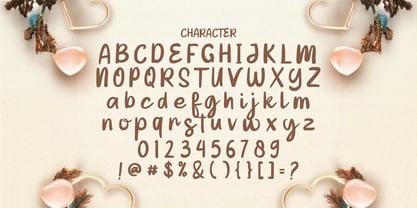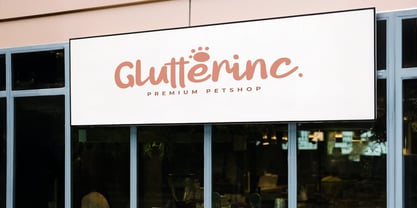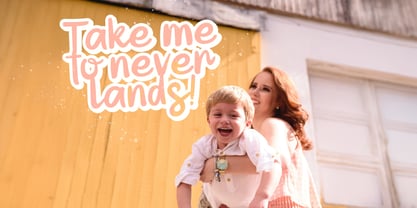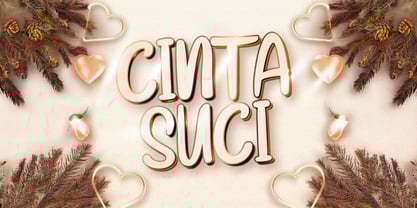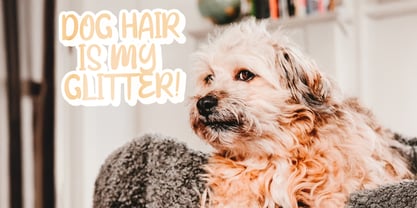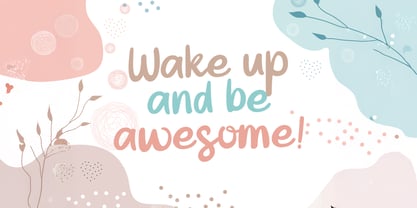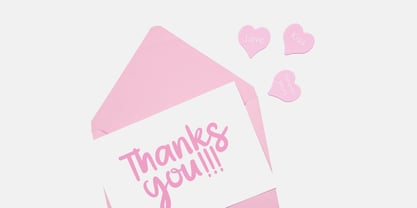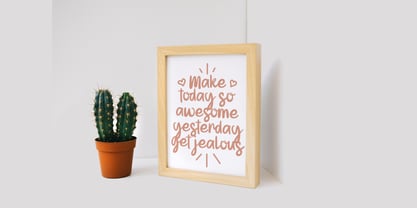
The Cinta Suci Font Family was designed by Virgiawan Listanto and published by Stringlabs Creative Studio. Cinta Suci contains 1 styles. More about this family
Cinta Suci is a graceful and luxurious display font that blends romance with sophistication. With its elegant curves, decorative flair, and dramatic presence, Cinta Suci is perfect for making a bold yet refined statement. Ideal for wedding themes, high-end branding, event invitations, and elegant product packaging, Cinta Suci adds a timeless charm that captivates and enchants.